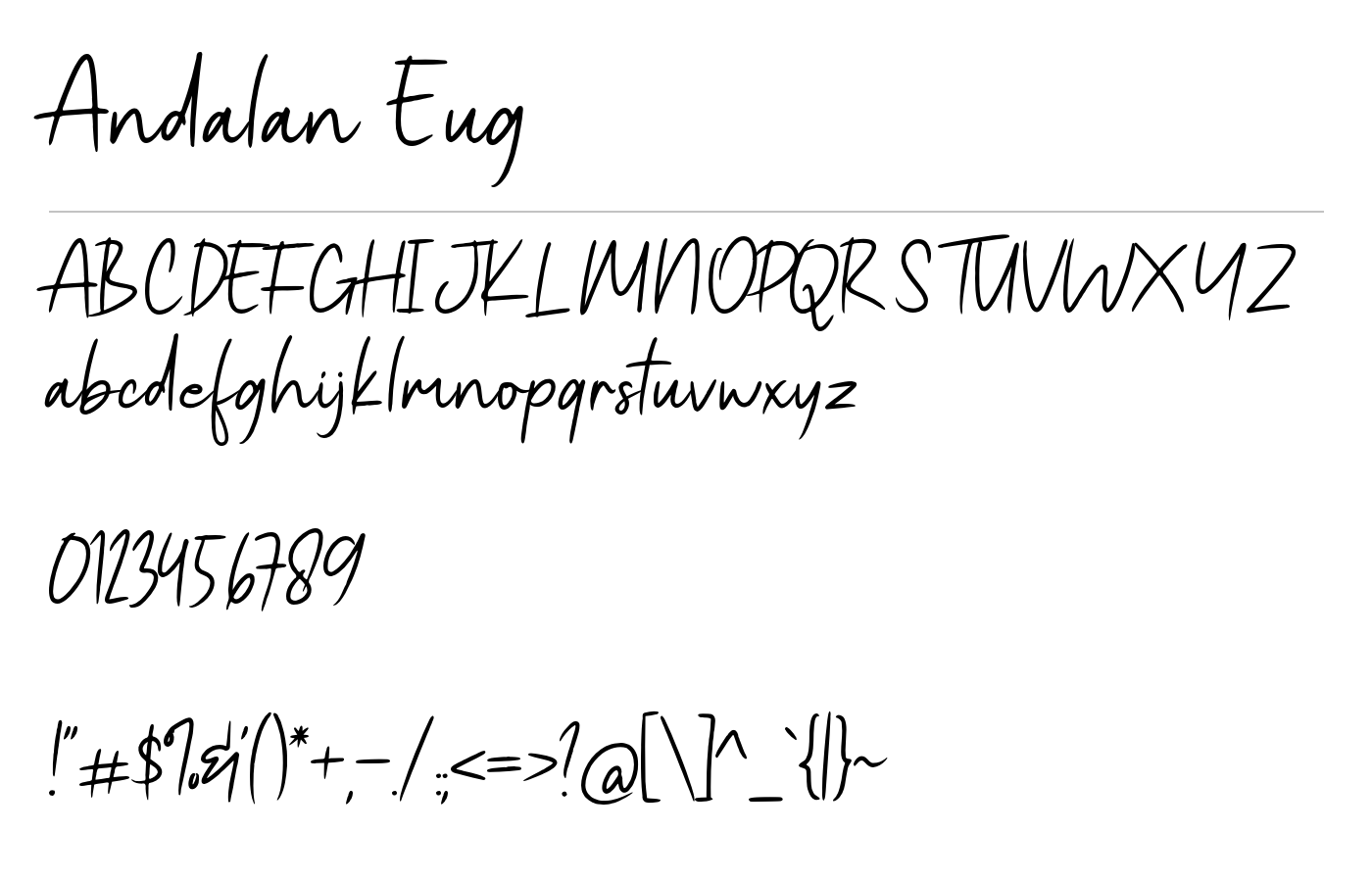
Andalan Eug is a casual, handwritten script font that feels personal and approachable, with a light and airy stroke style that resembles natural penmanship. Its tall, slender letterforms and informal flow make it perfect for creative projects, invitations, personal branding, and any design that benefits from a friendly, relaxed vibe. This font works well in headlines, logos, and social media graphics where a touch of warmth and authenticity is desired.
Andalan Eug Font
About Andalan Eug Font
| Font family | Andalan Eug Font |
| Designer | Muhammda ZD Prayogo |